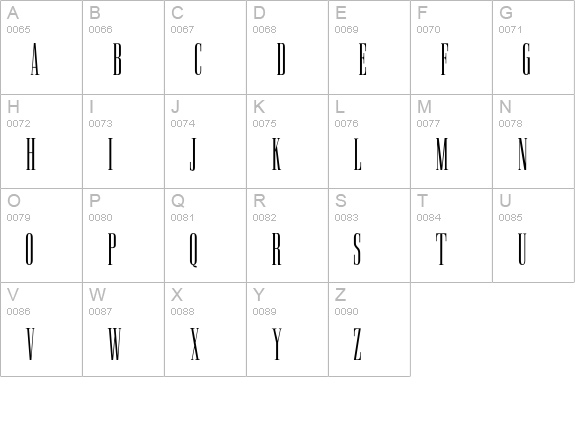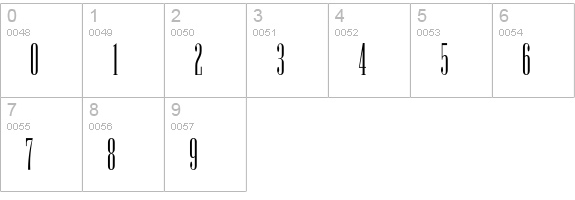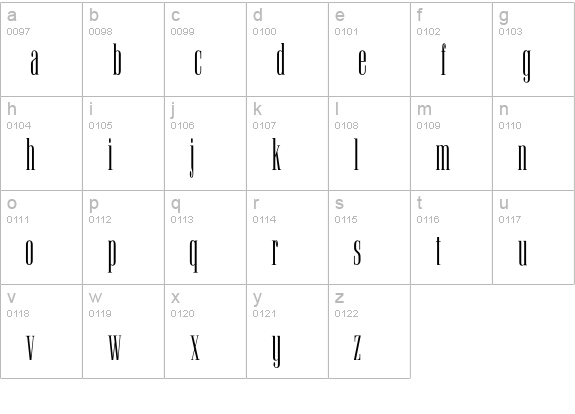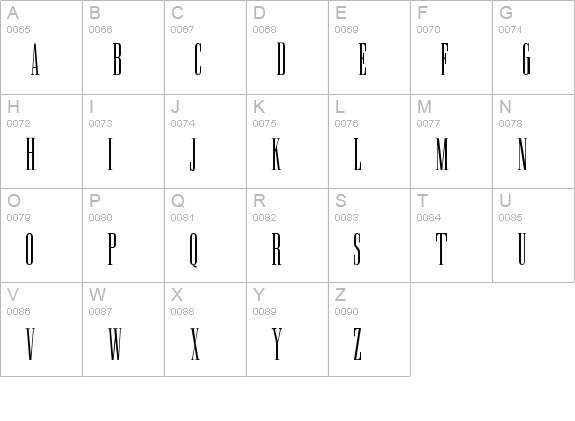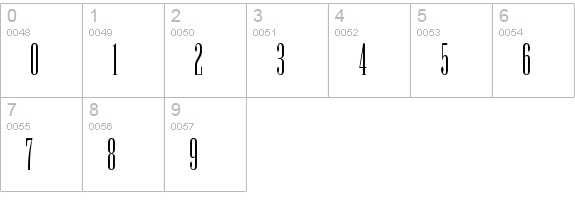
UltraCondensedSerif Font Details
UltraCondensedSerif is a remarkable font that exudes elegance, sophistication, and style. With its slender and compact letterforms, this font is perfect for creating eye-catching headlines, impactful titles, and stunning logos. Its unique serifs add a touch of classic charm, making it a versatile choice for both formal and creative projects. This font's condensed design allows for maximum space efficiency, making it ideal for projects with limited layout space. Whether you're designing a poster, magazine layout, or website, UltraCondensedSerif will make your text stand out while maintaining a clean and professional appearance. The beauty of UltraCondensedSerif lies not only in its aesthetic appeal but also in its versatility. It effortlessly adapts to various design styles, from vintage and retro to modern and minimalist. Its timeless quality ensures that it will remain relevant and captivating for years to come. What sets UltraCondensedSerif apart is its availability for free download at FontsMarket.com. This means that you can easily access and utilize this exceptional font in your projects without any cost. FontsMarket.com provides a wide range of high-quality fonts, making it a go-to resource for designers, creatives, and typographers. So, why wait? Enhance your designs and elevate your typography with UltraCondensedSerif. Download this font for free at FontsMarket.com and unlock a world of possibilities for your next project.